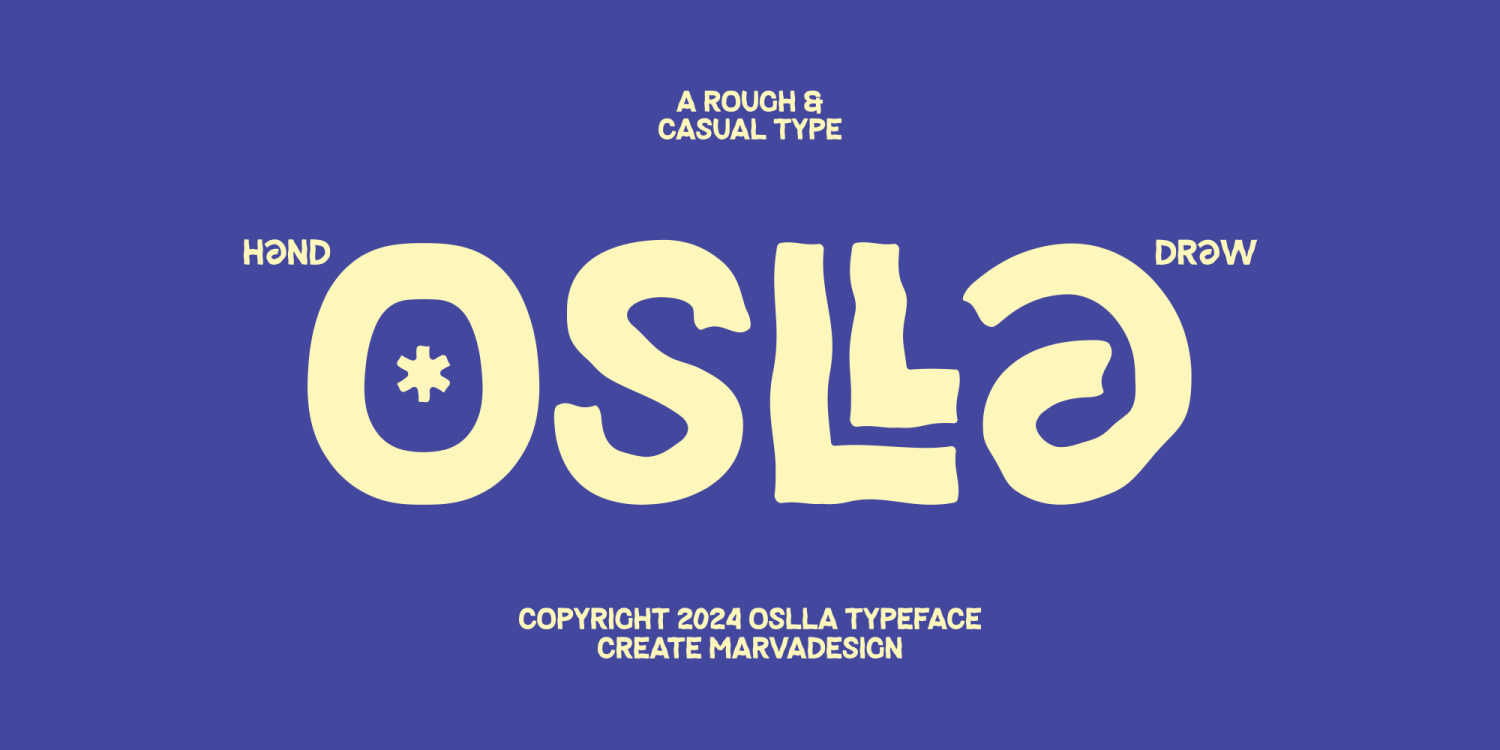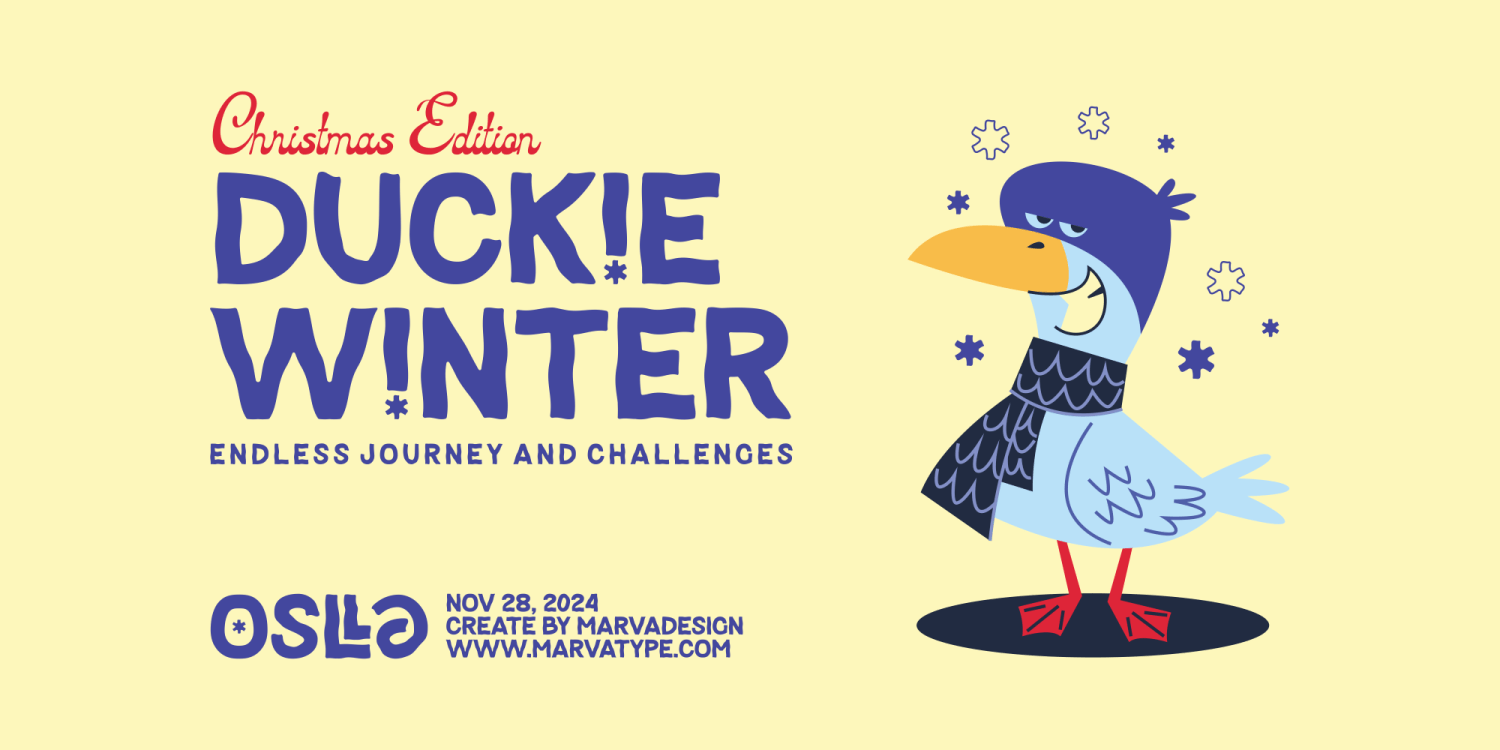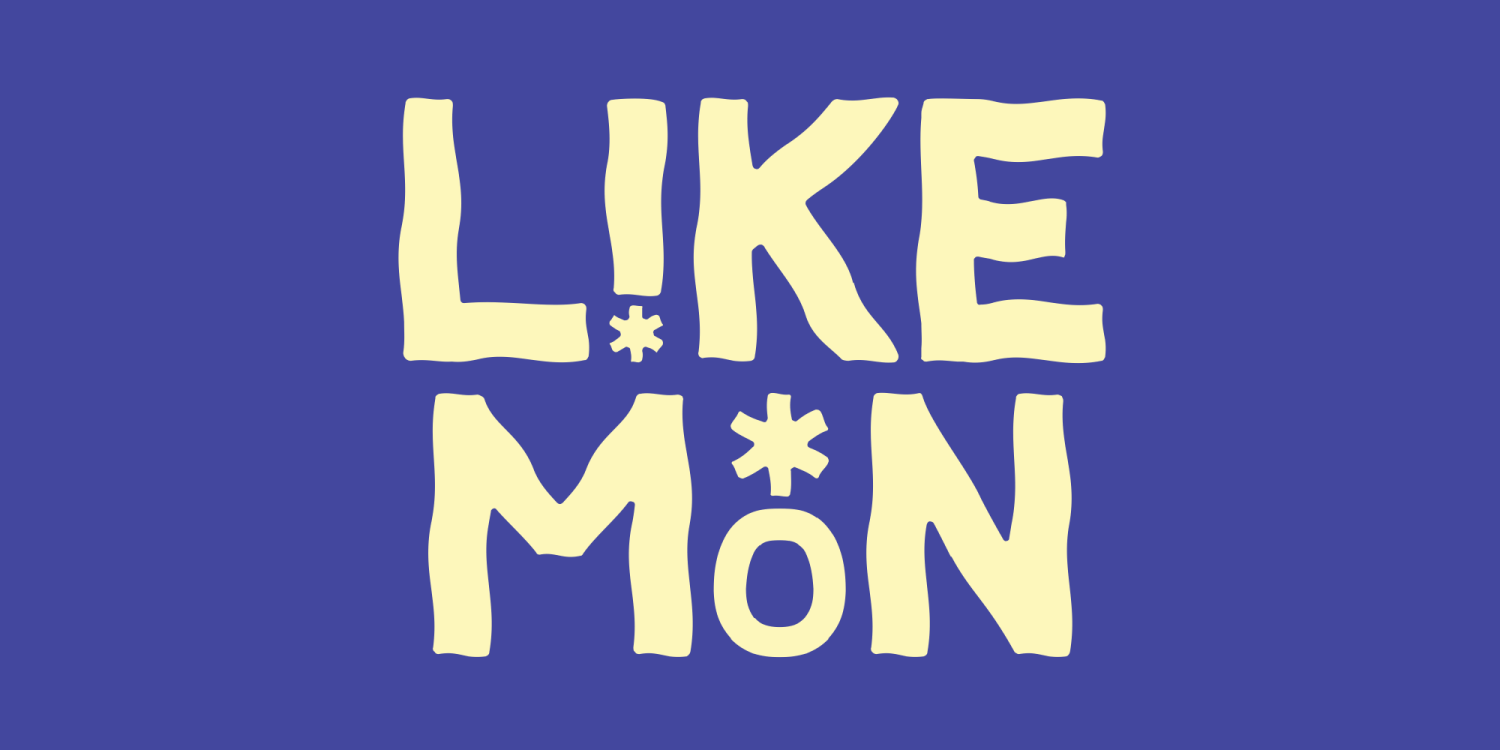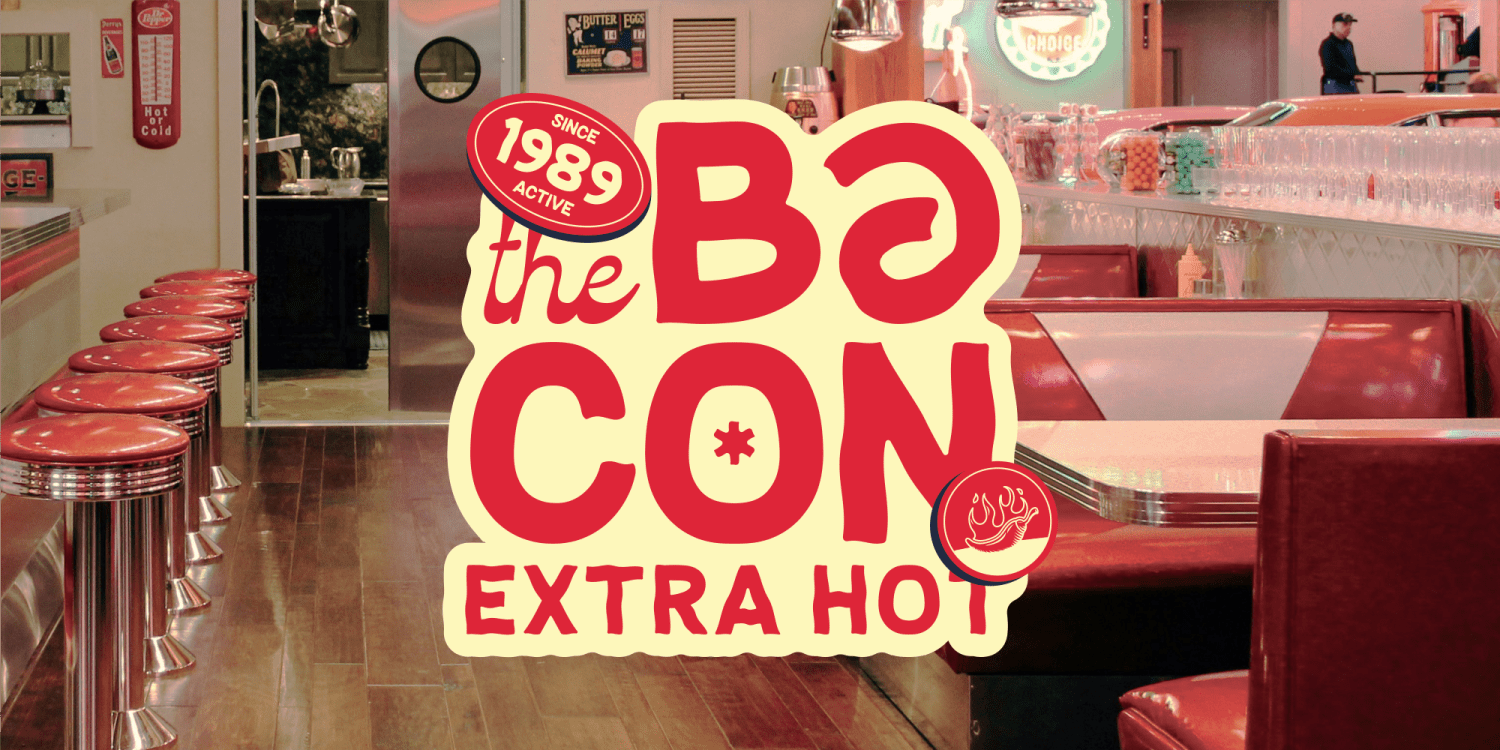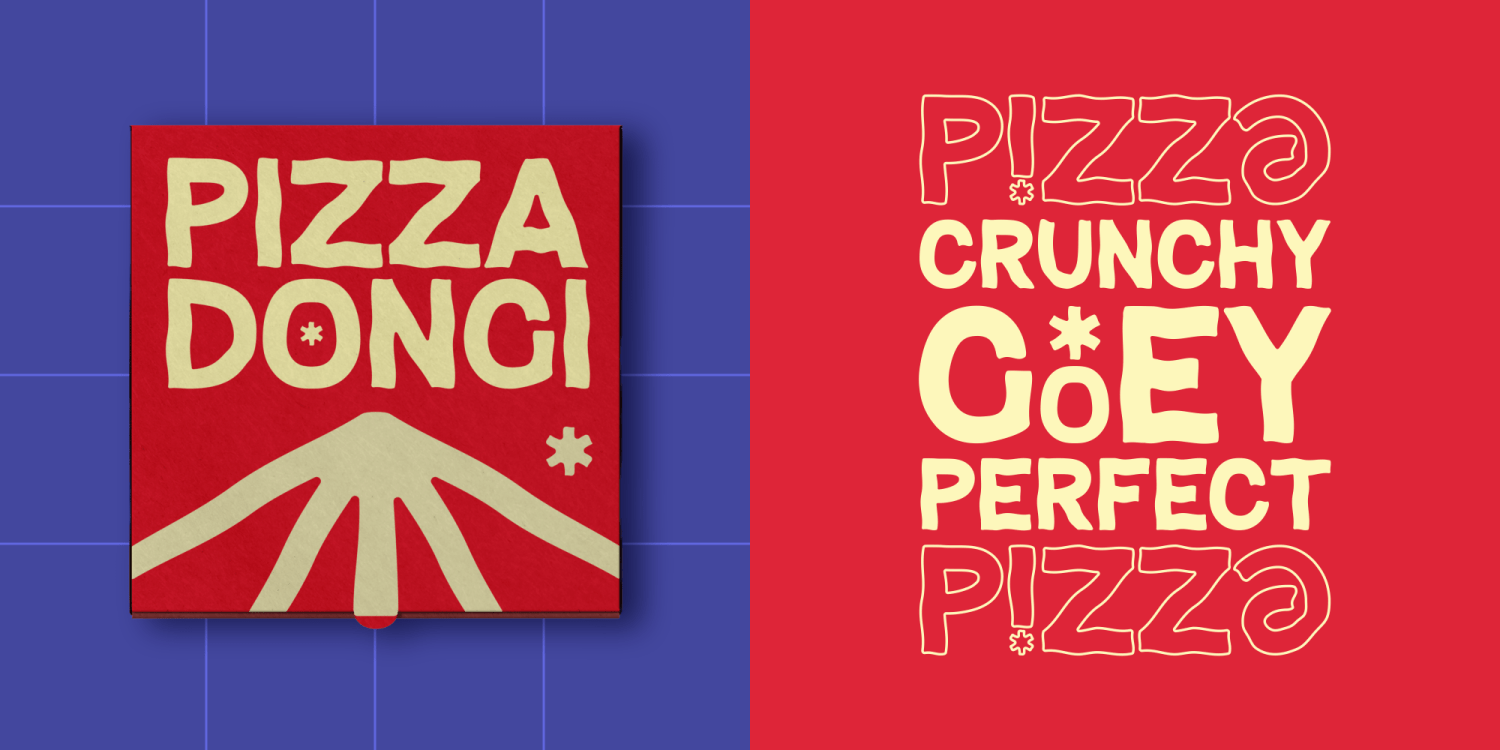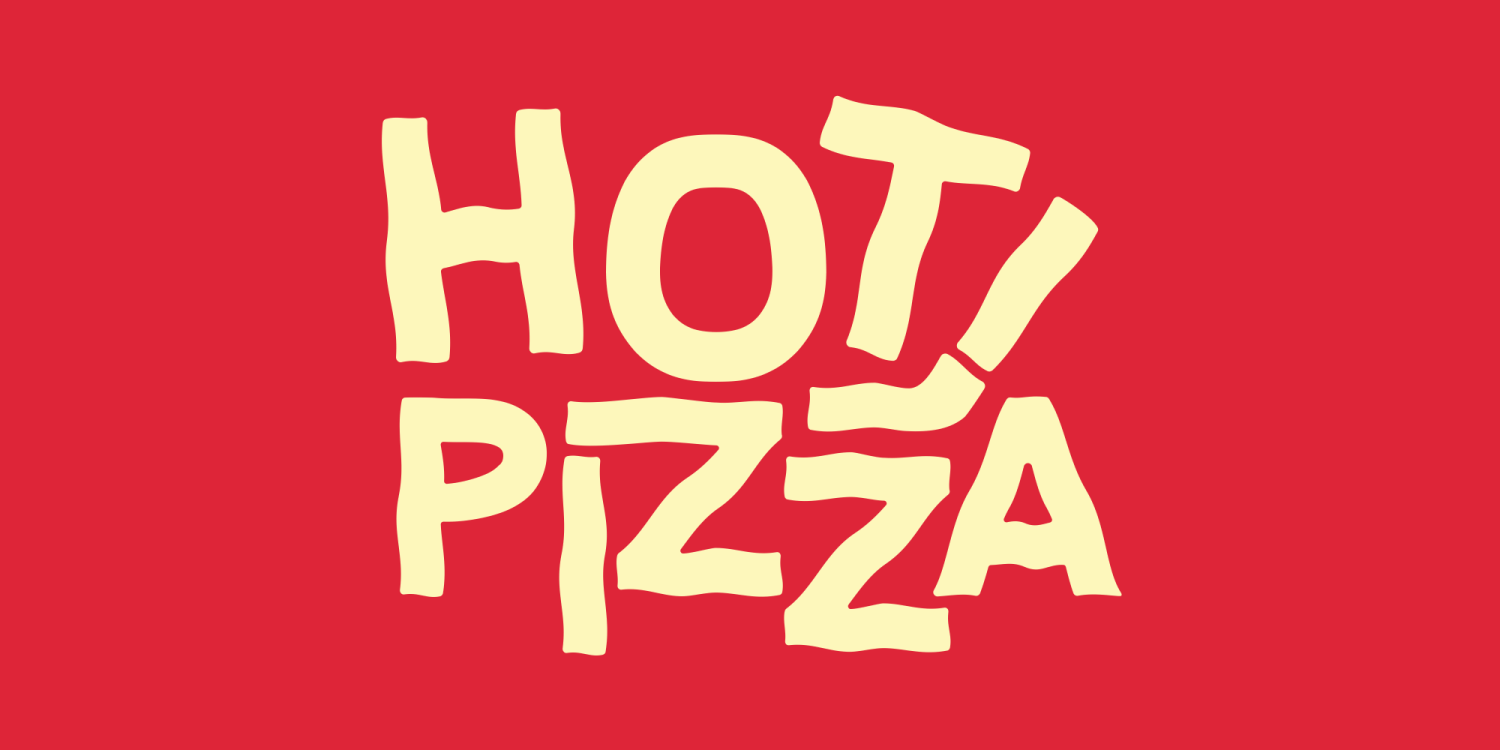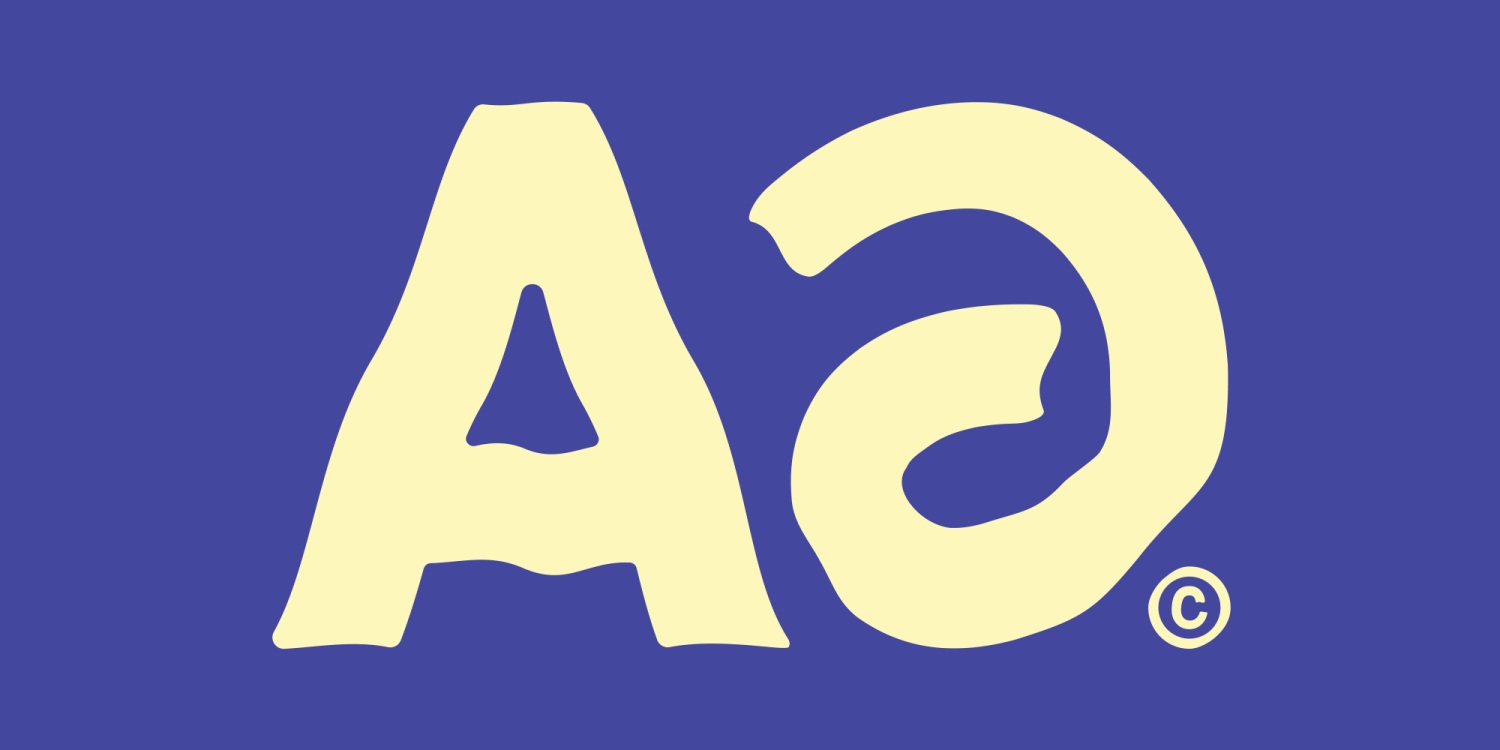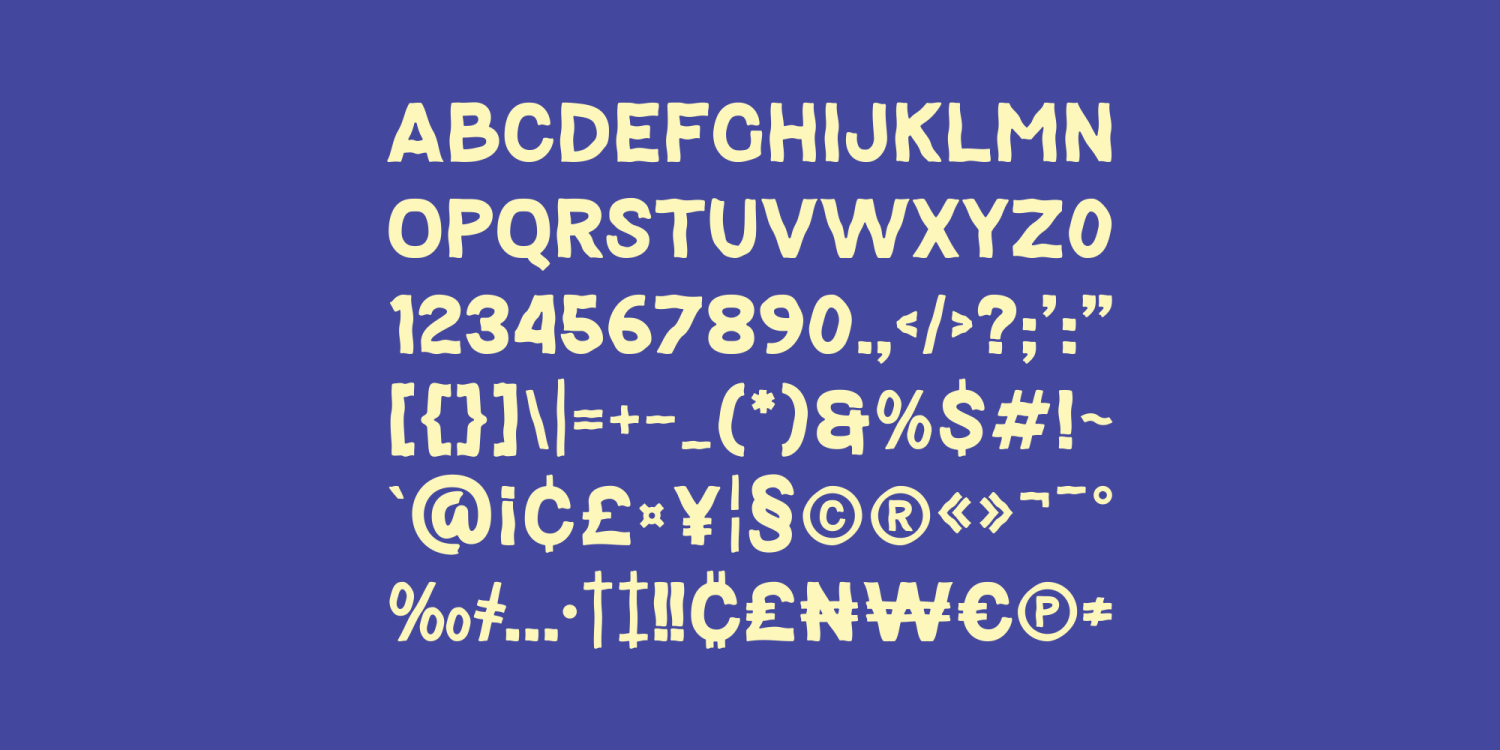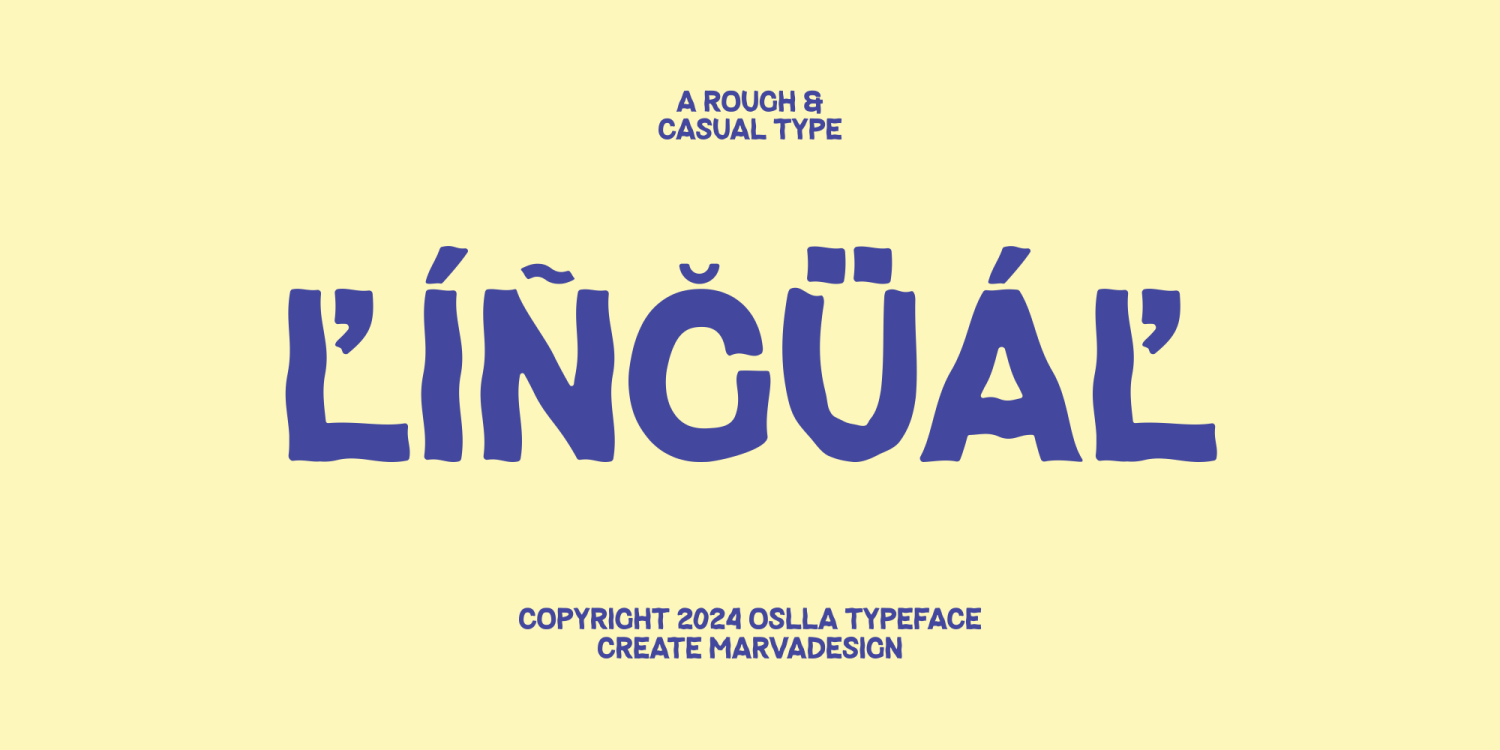
Oslla
Oslla is a bold and dynamic typeface characterized by its rough, casual style. Crafted using abstract wave brushes, Oslla's expressive strokes bring a unique flair to every design. The font includes a selection of distinctive characters within its alternatives and ligatures, offering creative flexibility for any project.
Ideal for cartoon magazines, branding, and packaging, Oslla adds a playful yet rugged touch to the design landscape. Its versatility ensures it complements a wide array of applications, imbuing projects with personality and an artistic vibe. Whether for print or digital media, Oslla is a perfect choice for those seeking a typeface that stands out with creative charm.